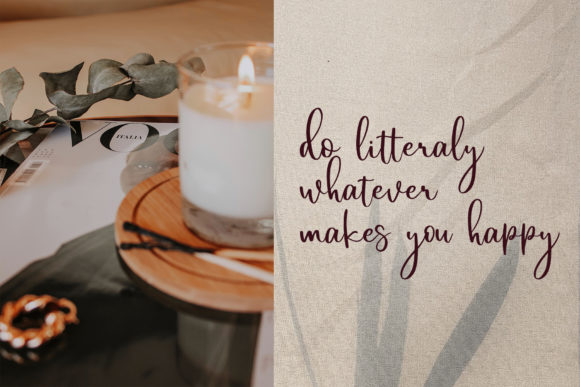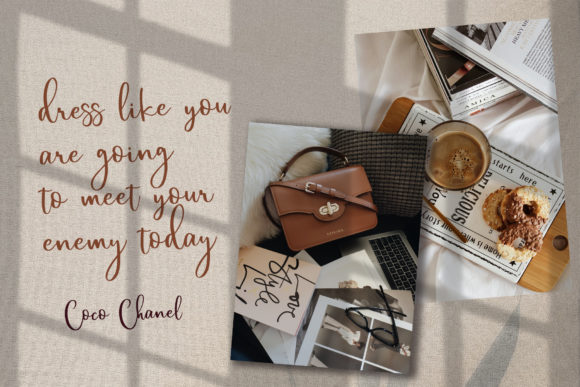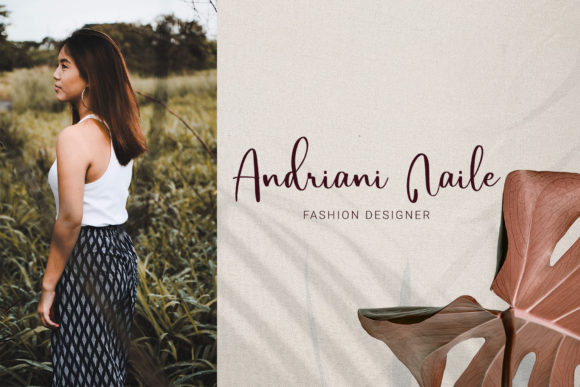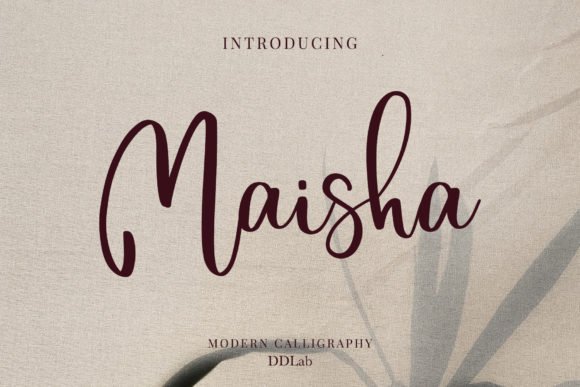
Maisha is a stylish modern calligraphy font.
It has cute characters and amazing alternates It can be used for wedding invitations, business card, poster design, t-shirt designs, magazine design, greetings cards, and much more.